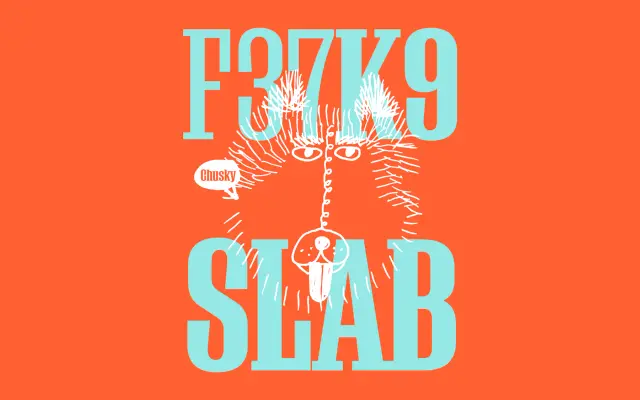
F37 K9 Slab
F37 K9 Slab specimen from F37 Foundry
The slab-serif cut of F37 K9, an eight-style family that crosses a hybrid sans-meets-serif character for editorial and identity work.
F37 K9 Slab is the slab-serifed cut within F37's K9 system, a family F37 describe through the metaphor of a Chusky, the Siberian Husky and Chow Chow hybrid. It pairs with F37 K9 Soft and F37 K9 Wedge to make a three-way sibling family, each running across Light, Regular, Medium and Bold with matching italics. Use it where you want a low-contrast slab with a workhorse character and a clear connection to F37 Tinker, Caslon and the wider K9 group in editorial, branding and packaging.
Slab-serifed cut within the F37 K9 family, which F37 frame around the Chusky (Siberian Husky x Chow Chow) crossbreed metaphor of a hybrid character. K9 Slab gives the family rectangular, low-contrast slab terminations for editorial and identity use, with an italic at every weight.